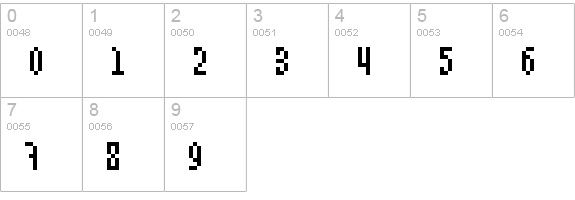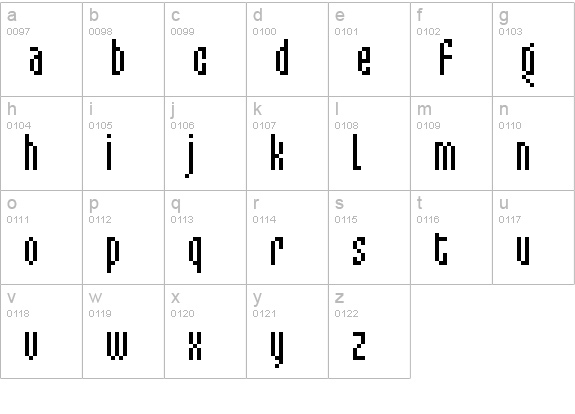
Mixelate font is a modern and stylish typeface that combines sleek lines with a pixelated twist, creating a unique and eye-catching design. Perfect for adding a contemporary edge to your projects, this font is versatile and can be used for a wide range of purposes, from branding to digital designs. Its clean and bold appearance makes it stand out, while the pixelated elements give it a playful and dynamic feel. Best of all, Mixelate font is available for free download at FontsMarket.com, making it easily accessible for designers and creatives looking to add a fresh and modern touch to their work. Whether you're designing a website, creating a logo, or working on a digital campaign, Mixelate font is sure to make a statement and leave a lasting impression. Download it today and elevate your designs with this stunning and free typeface.